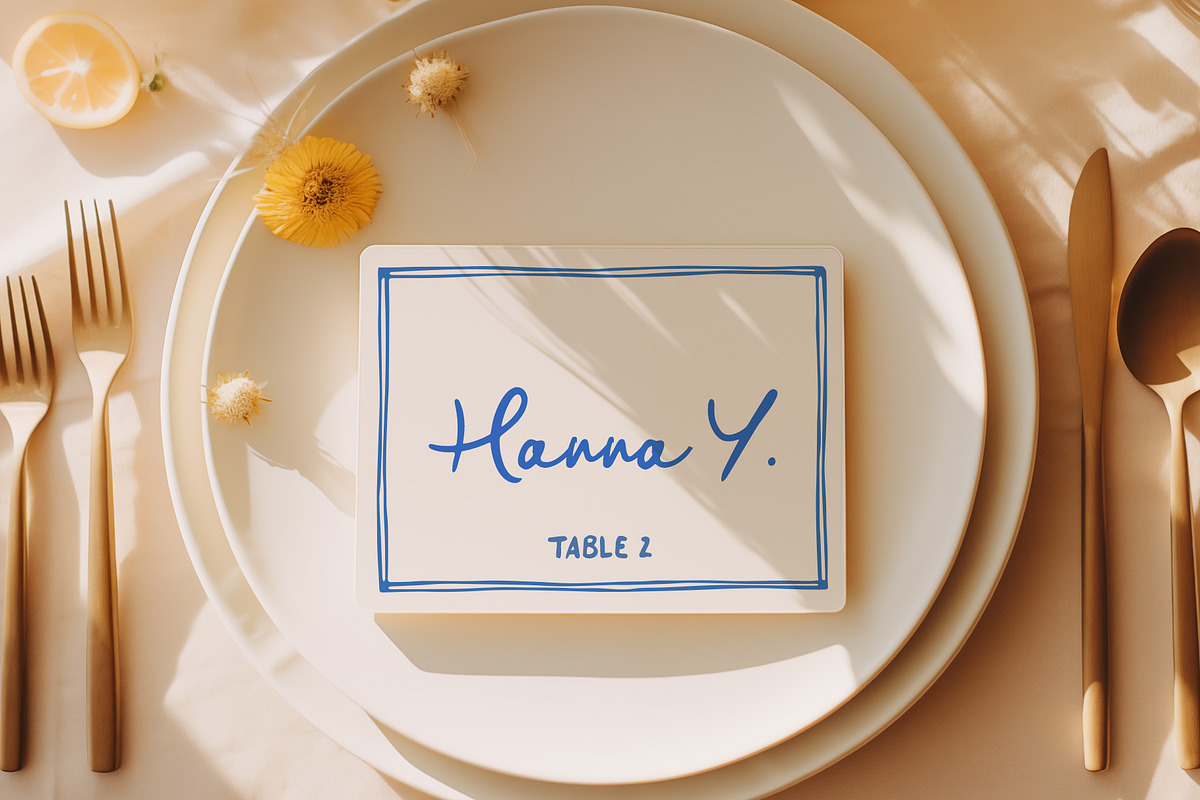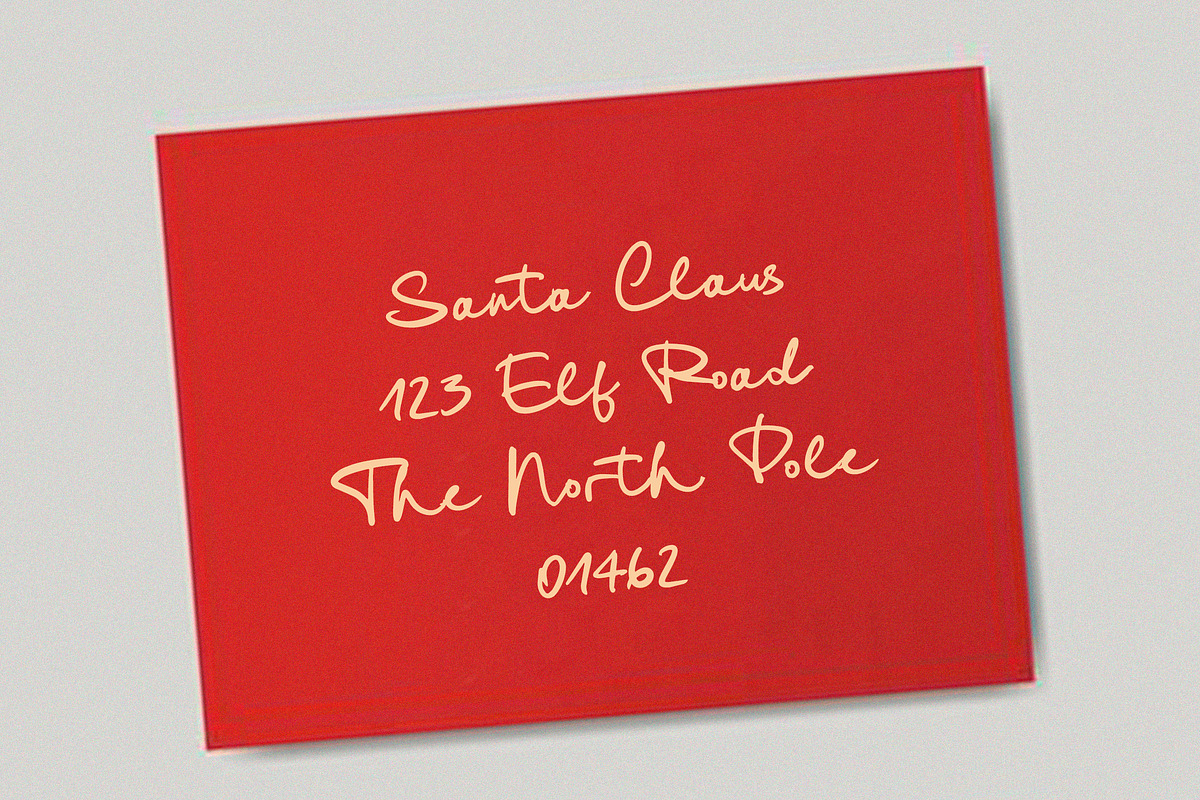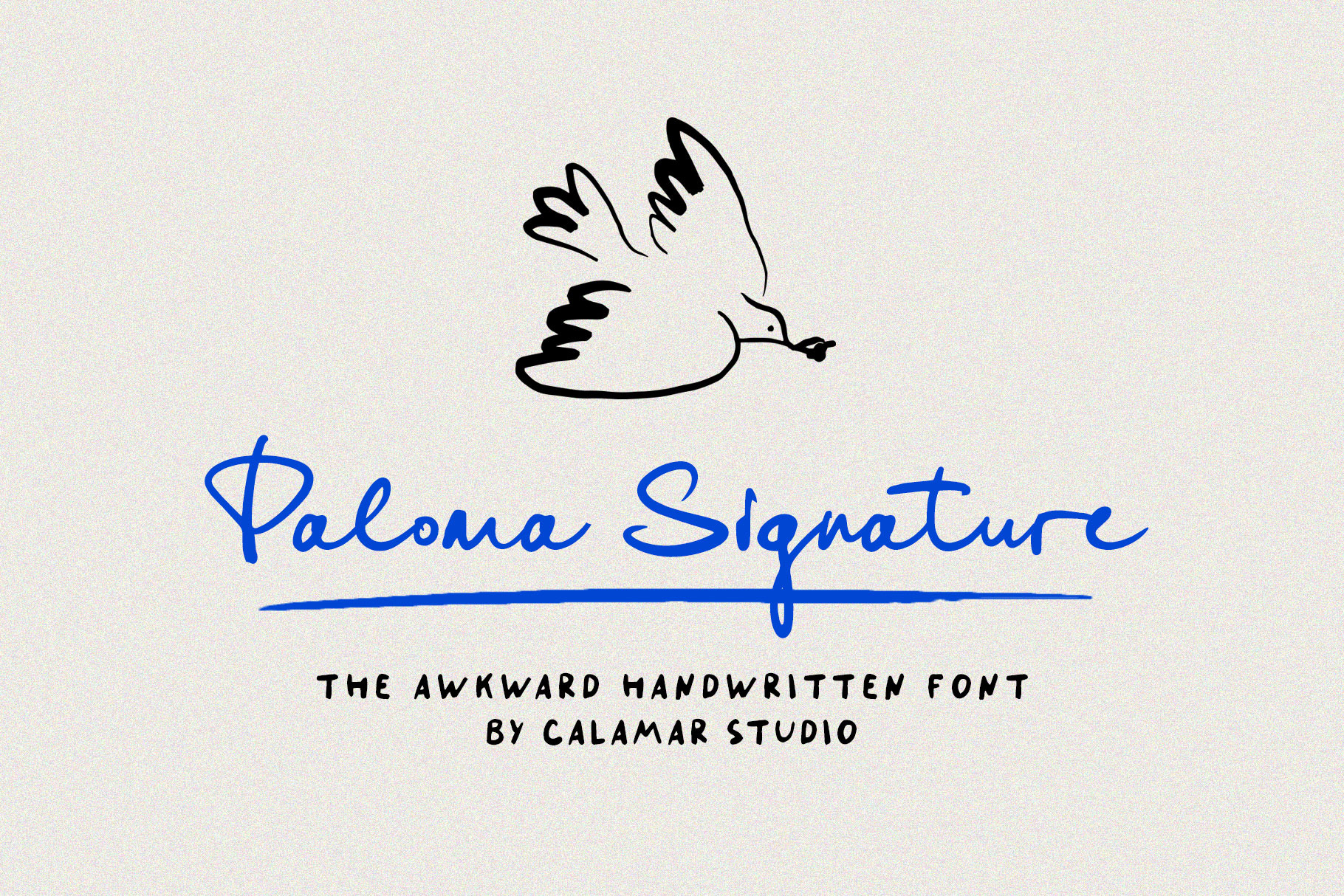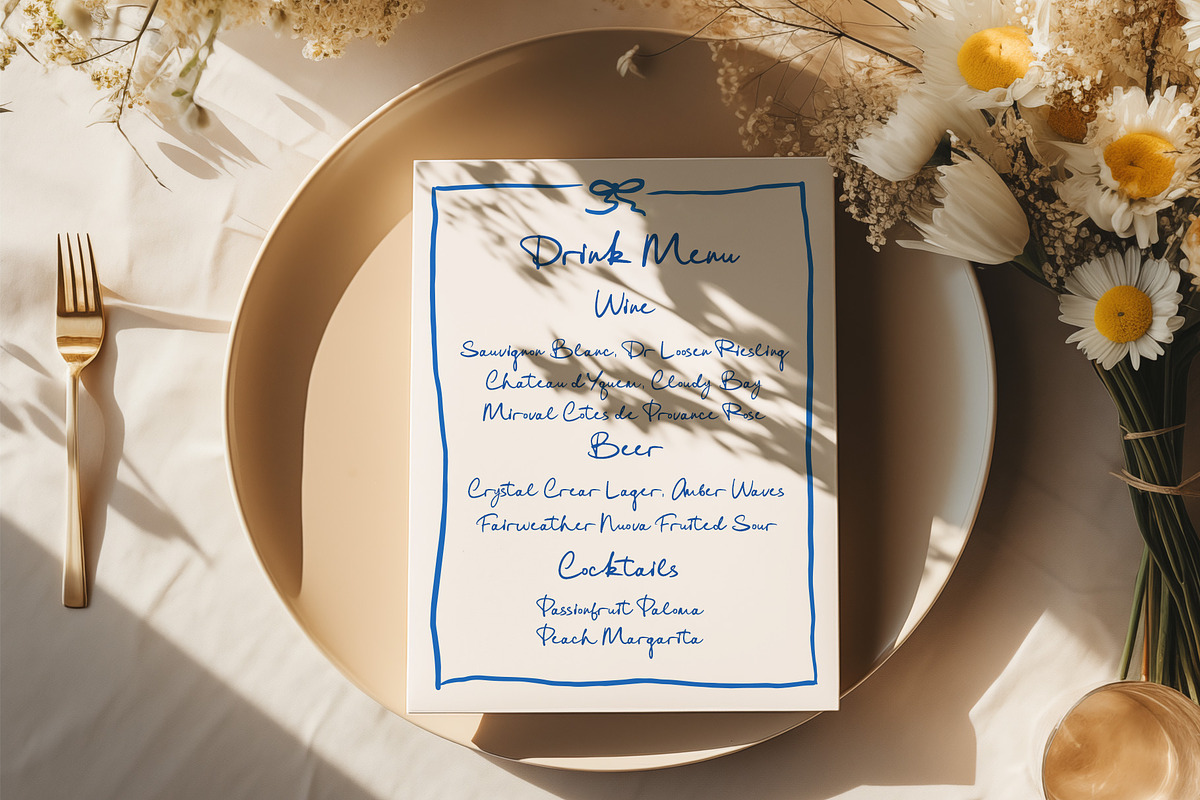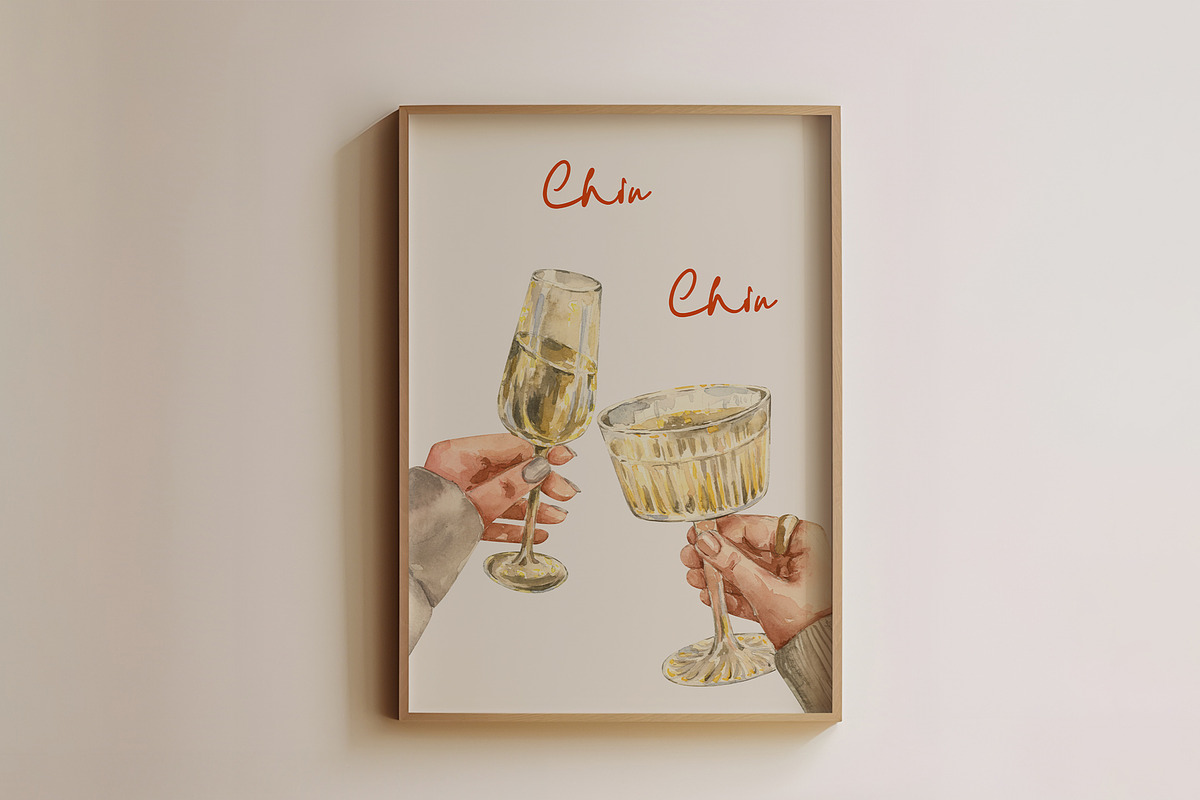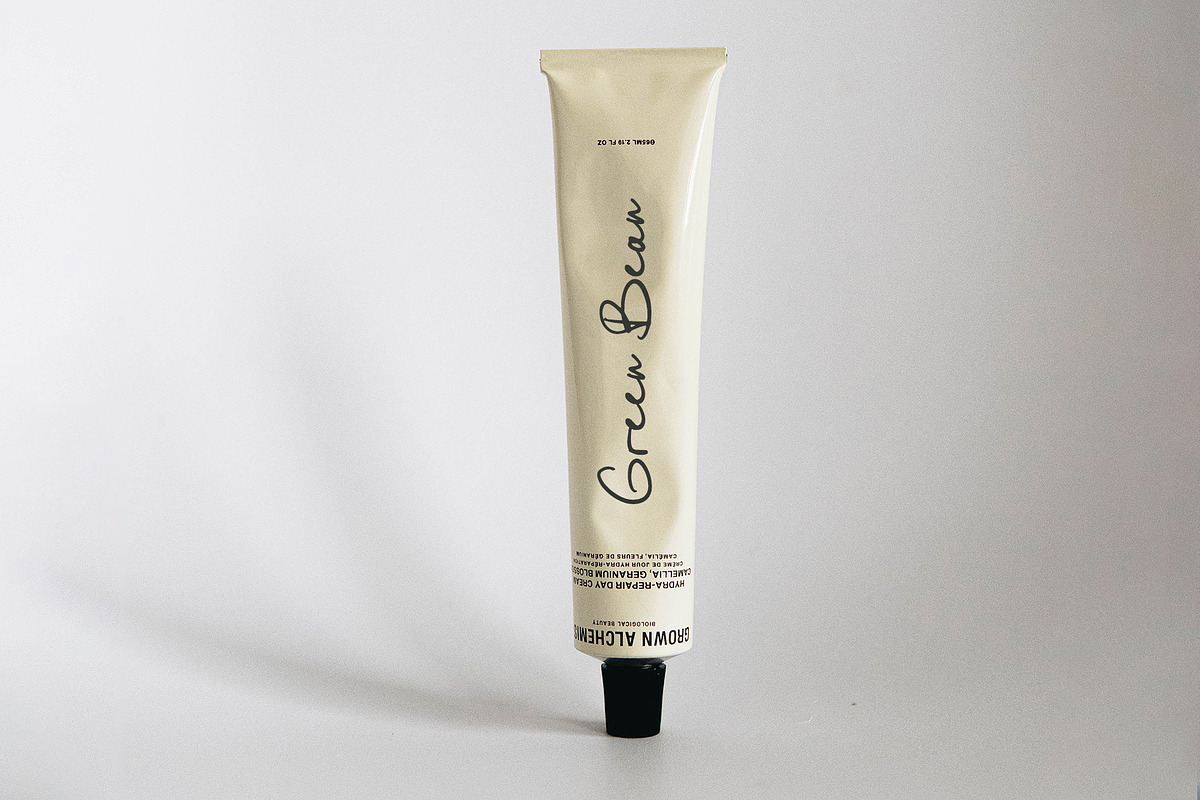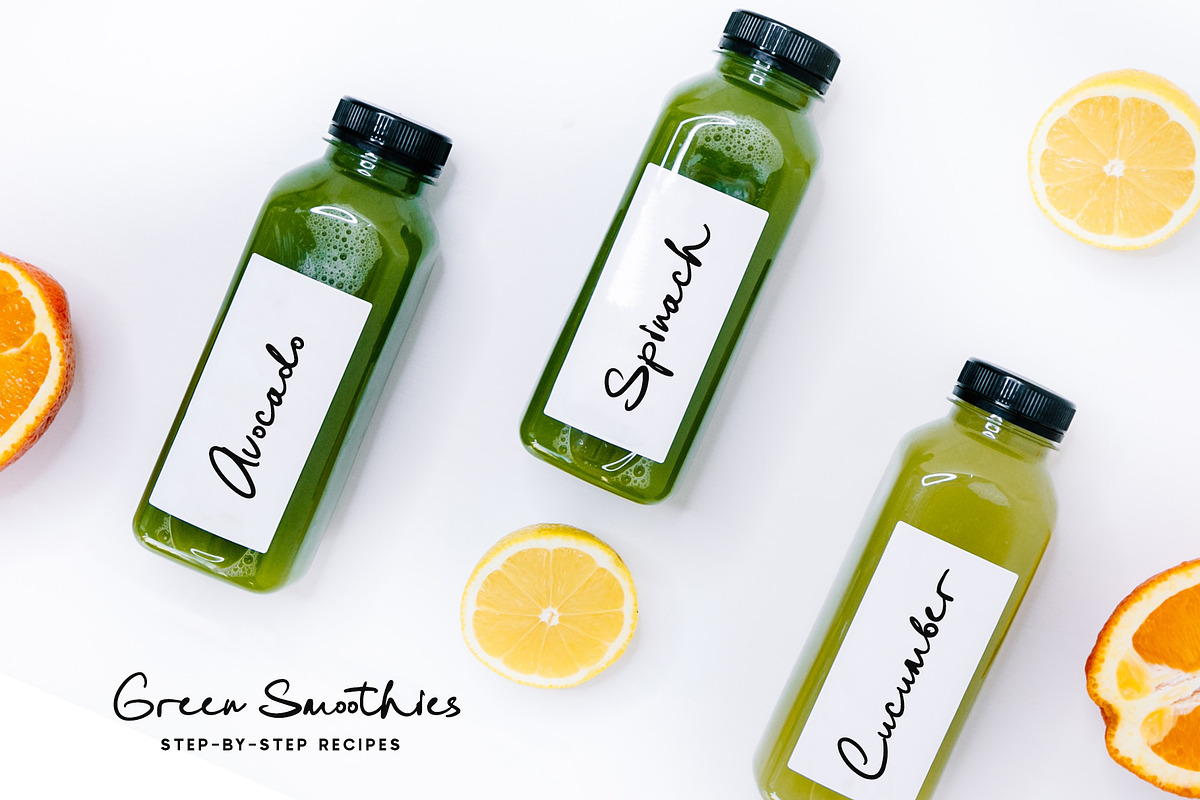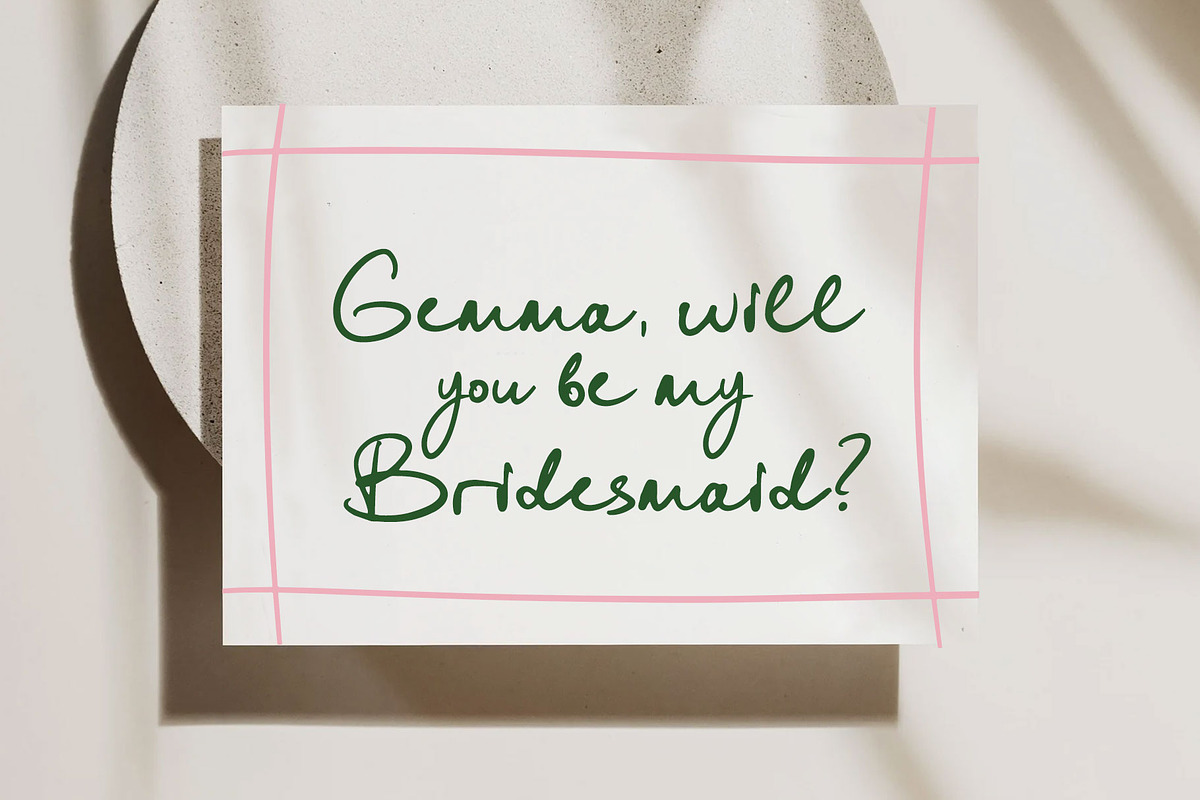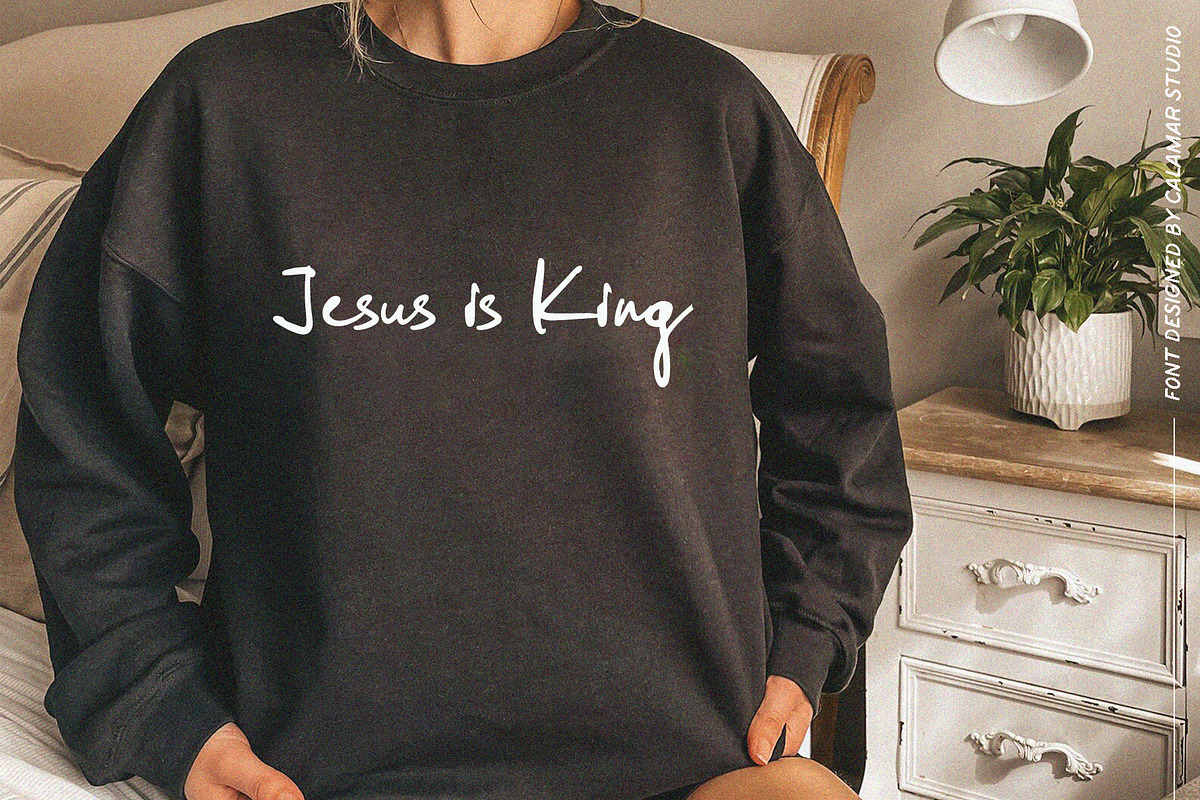
Paloma Signature | Handwritten Font
Say hello to Paloma Signature Script! :)
This quirky handwritten script is perfect for whimsical wedding stationery, playful greetings, and those moments when you just need a charmingy-but-fun font.
Paloma Signature includes full set of Uppercase and Lowercase Basic Characters, Numbers, Punctuation and ligatures.